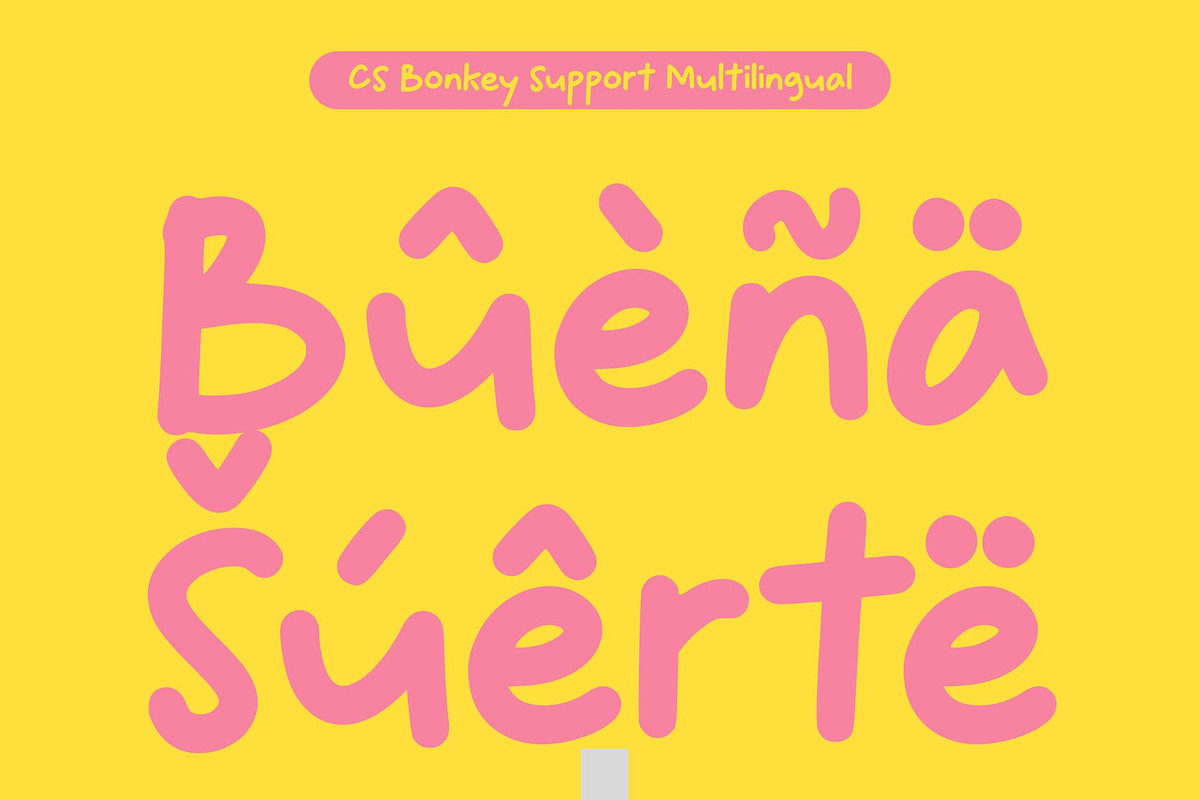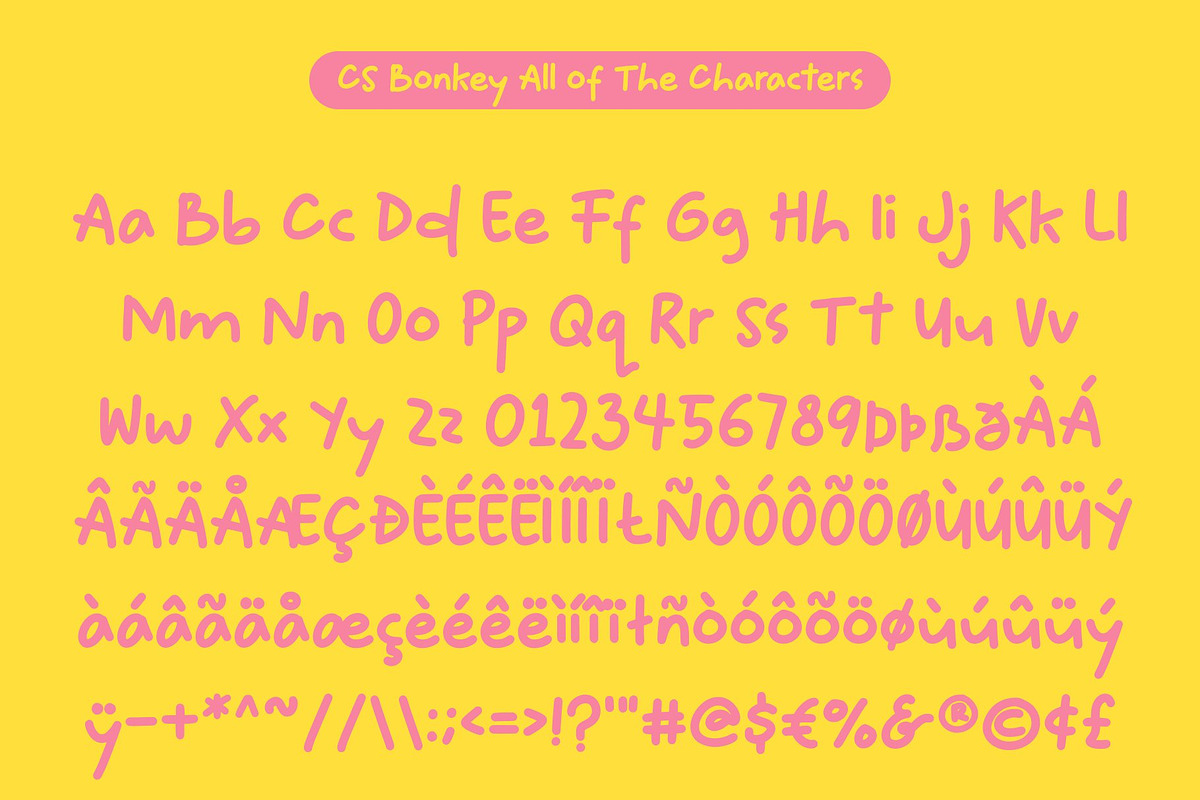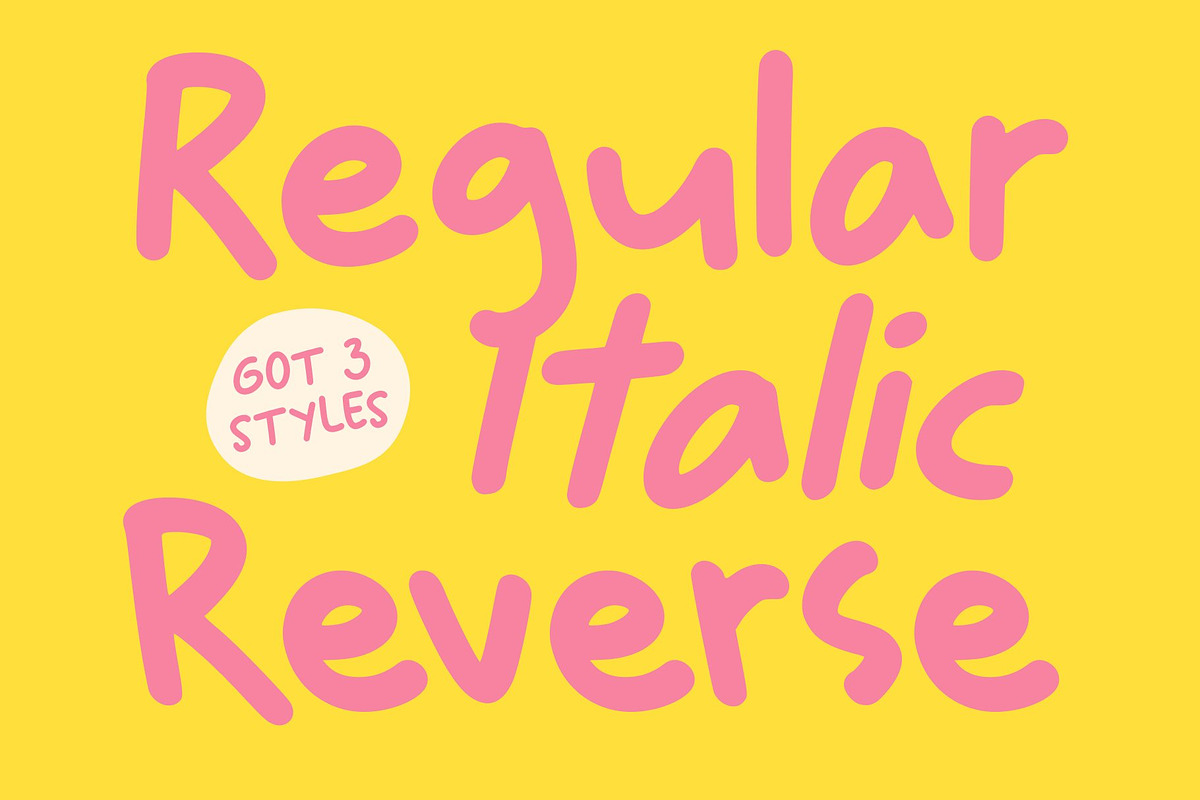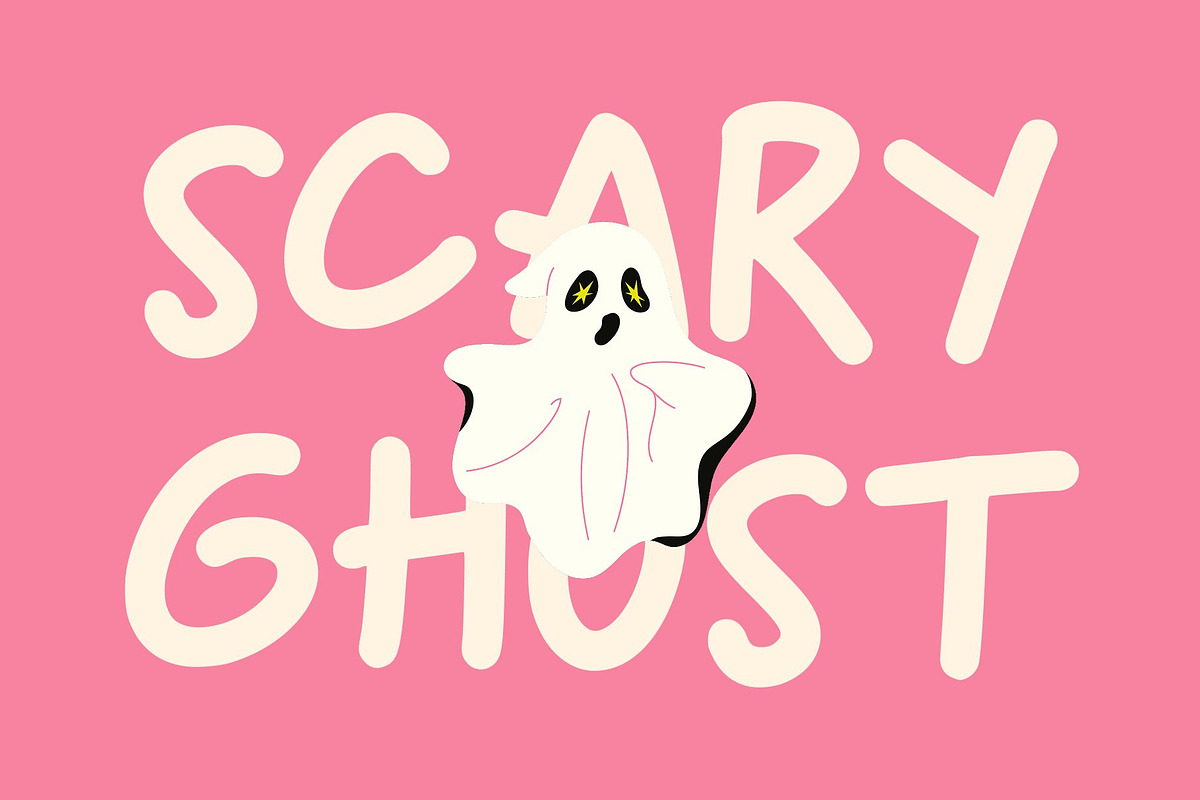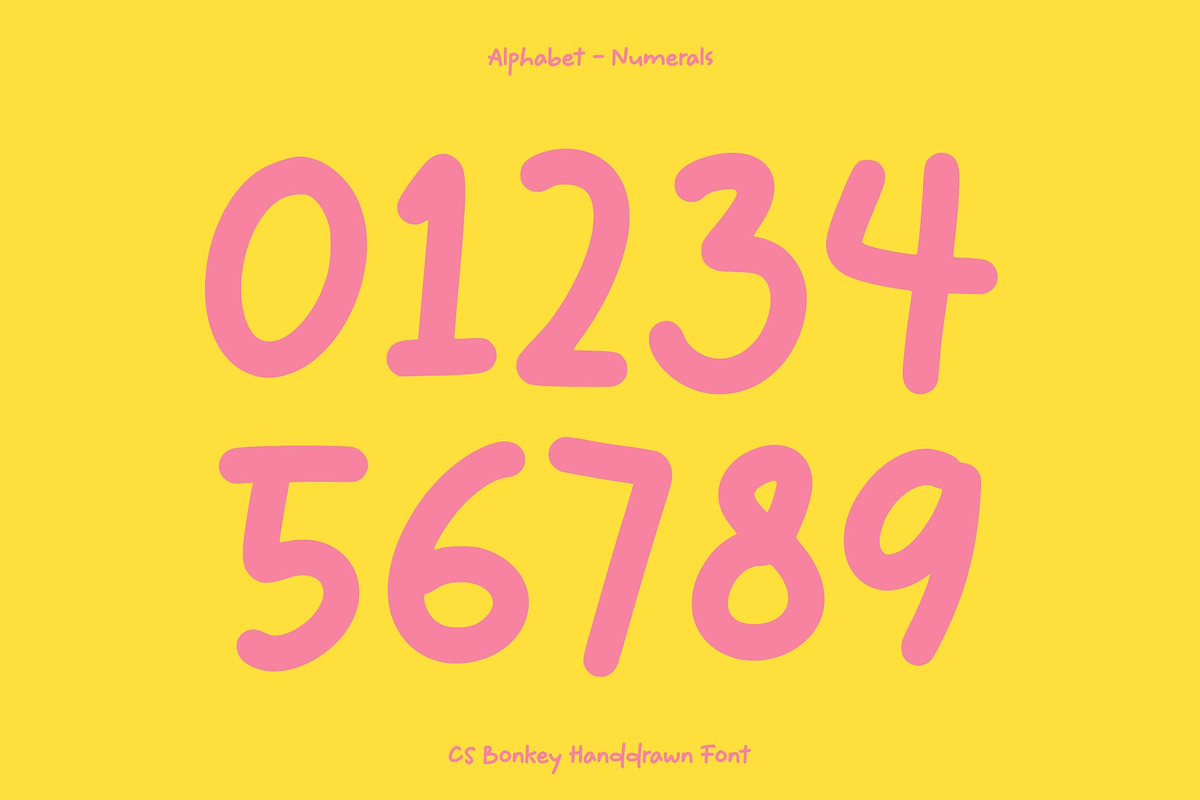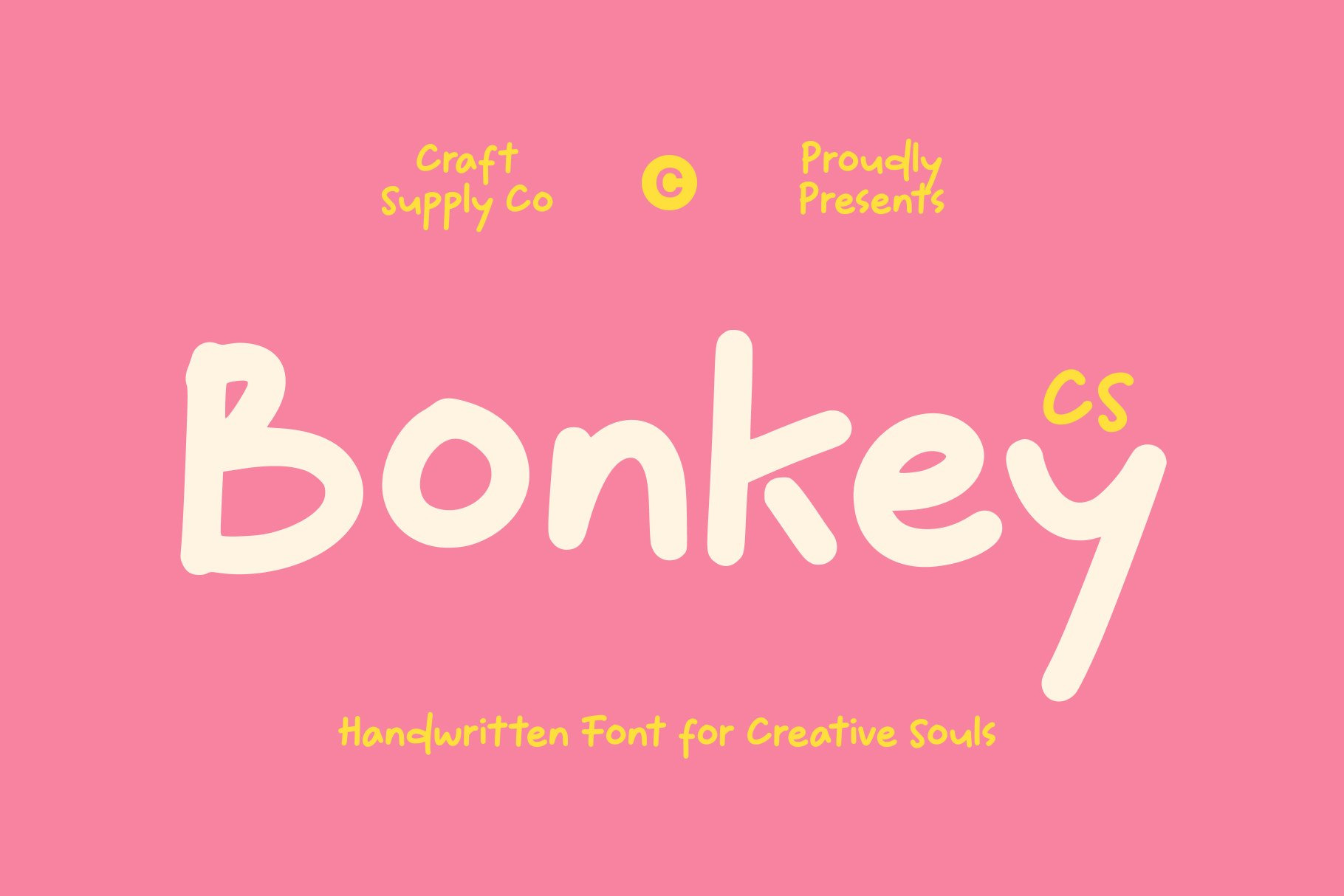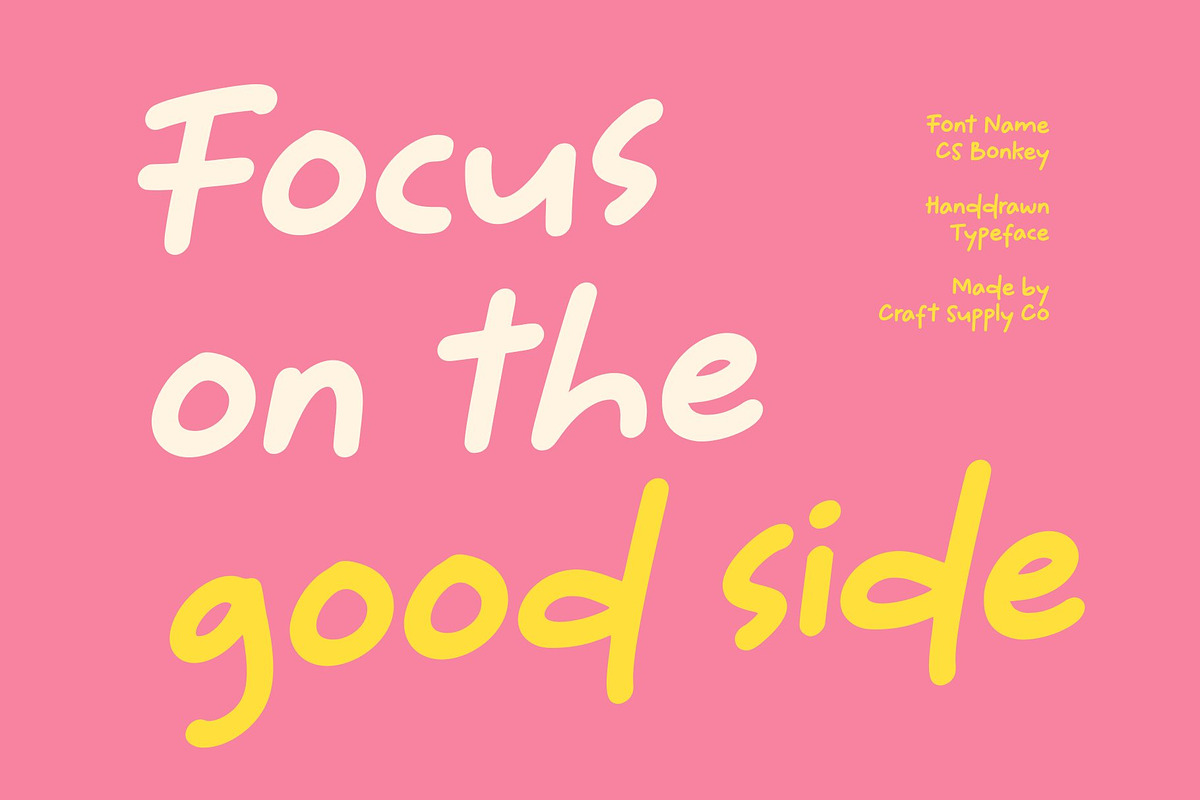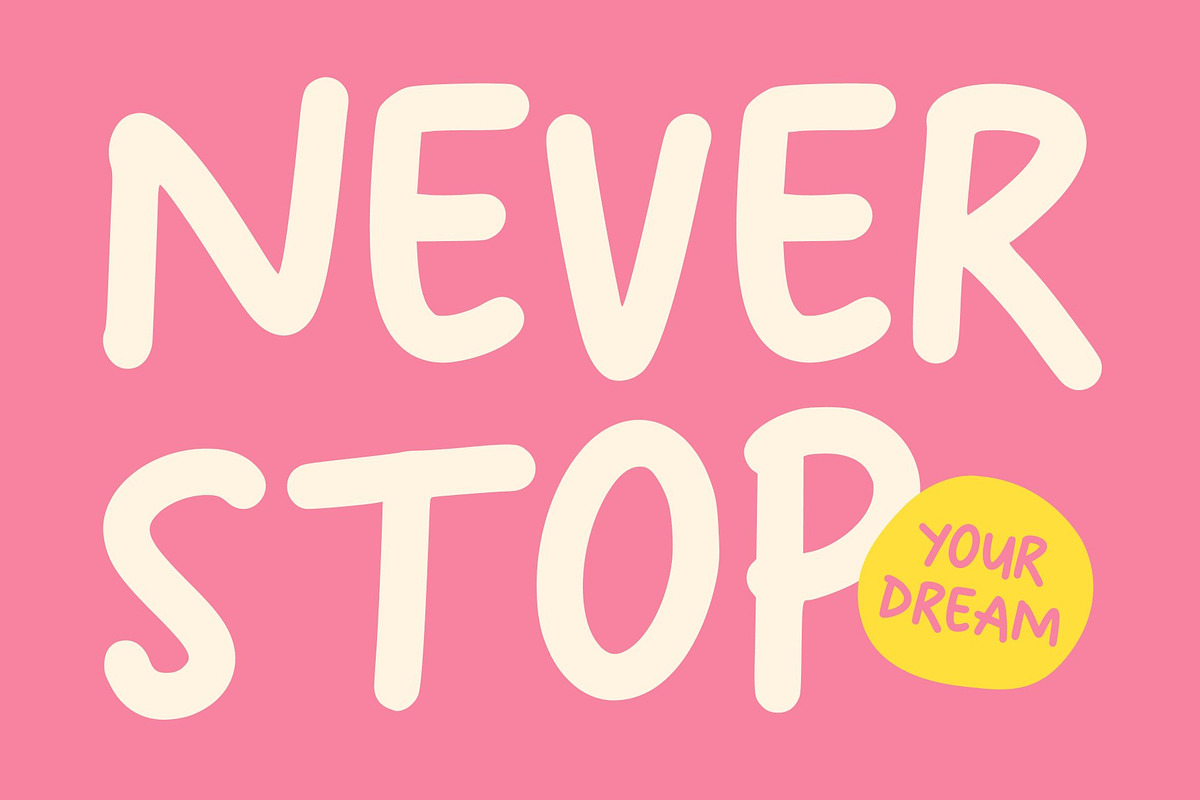
CS Bonkey – Cute Handwritten Font
CS Bonkey – Cute Handwritten Fun with Rounded Cheerfulness
Playful Handwritten Style Full of Charm This is a cute handwritten font designed to radiate pure playfulness and joy. With its friendly strokes and rounded sans serif influence, this font captures the warmth of casual handwriting while maintaining a clean, approachable look. Every letter feels soft, cheerful, and welcoming.
Rounded Shapes for Friendly, Soft Visuals The rounded letterforms give this font a gentle and delightful appearance. These smooth curves enhance readability while adding a lovable, childlike tone that instantly elevates the fun factor. The simplicity of its shapes ensures that your designs feel bright, youthful, and visually engaging, especially in playful or family-oriented contexts.
Expressive Strokes for Creative Energy Its expressive handwritten strokes bring lively character to any composition. This font’s natural flow introduces movement and creativity, giving your text an energetic attitude that stands out. This expressive touch helps your designs communicate friendliness and excitement, making it ideal for fun and storytelling visuals.
Perfect for Kids’ Projects, Party Invitations, and Fun Branding This font shines in kids’ projects, party invitations, fun branding, packaging, crafts, and any creative layout that aims to evoke happiness. Whether you’re designing children’s book titles, cute stickers, playful logos, or cheerful social media posts, this font brings a joyful and engaging atmosphere.
- CS Bonkey Regular
- CS Bonkey Italic
- CS Bonkey Reverse Italic